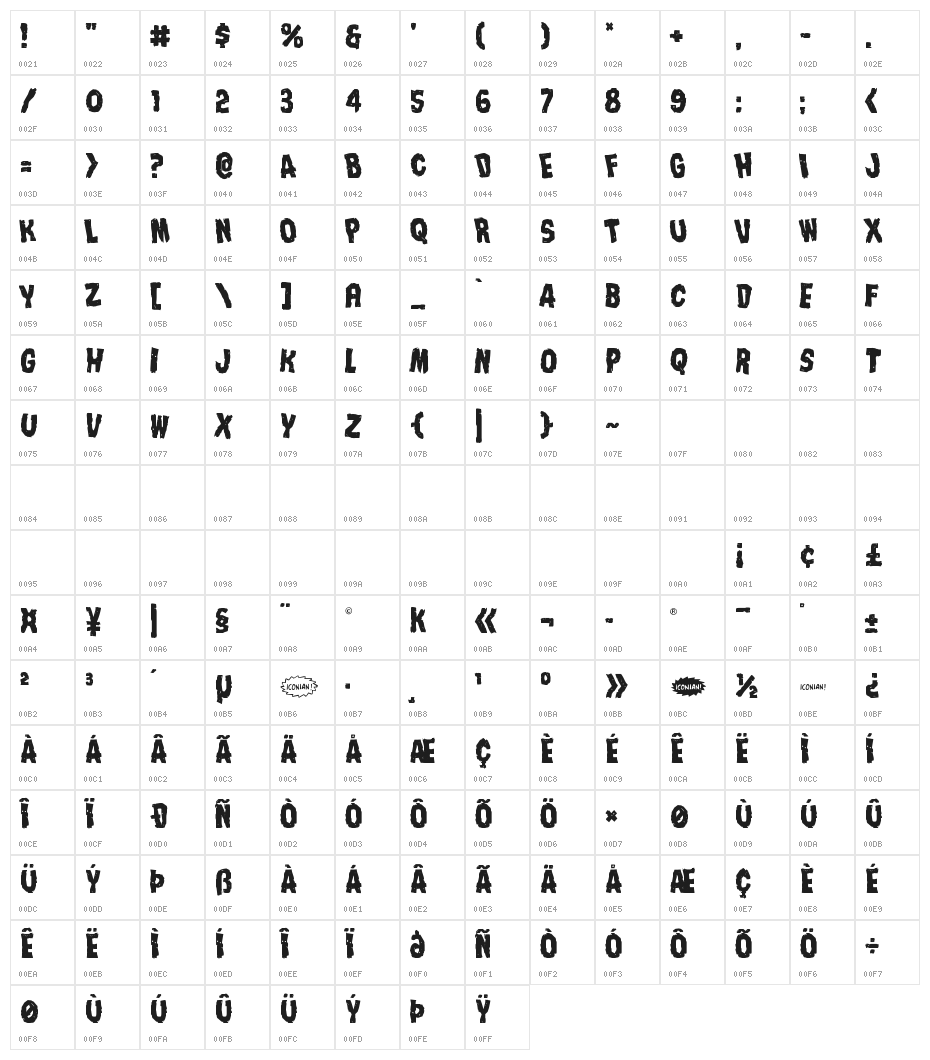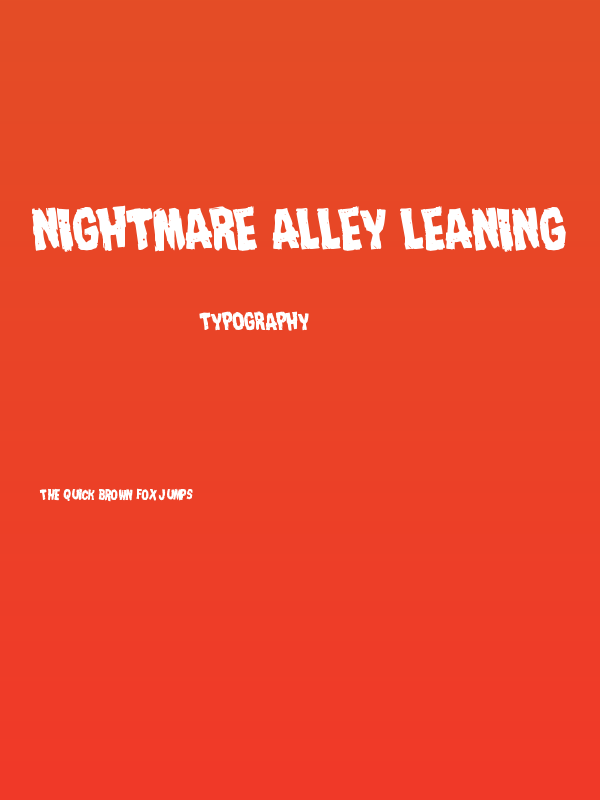
Nightmare Alley Leaning Font
Nightmare Alley Leaning Description
This font exudes a rugged and distressed aesthetic, characterized by its bold, uneven strokes and a slightly chaotic appearance. The letters have a hand-drawn quality, with irregular edges and varying thickness, giving it a raw and edgy feel. The uppercase and lowercase letters maintain a consistent style, while the numbers and special characters complement the overall design with their bold and impactful presence. This font is perfect for projects that require a gritty, urban vibe or a touch of rebelliousness.
| Proposed Projects | Ideal for music album covers, movie posters, streetwear branding, and edgy graphic designs. |